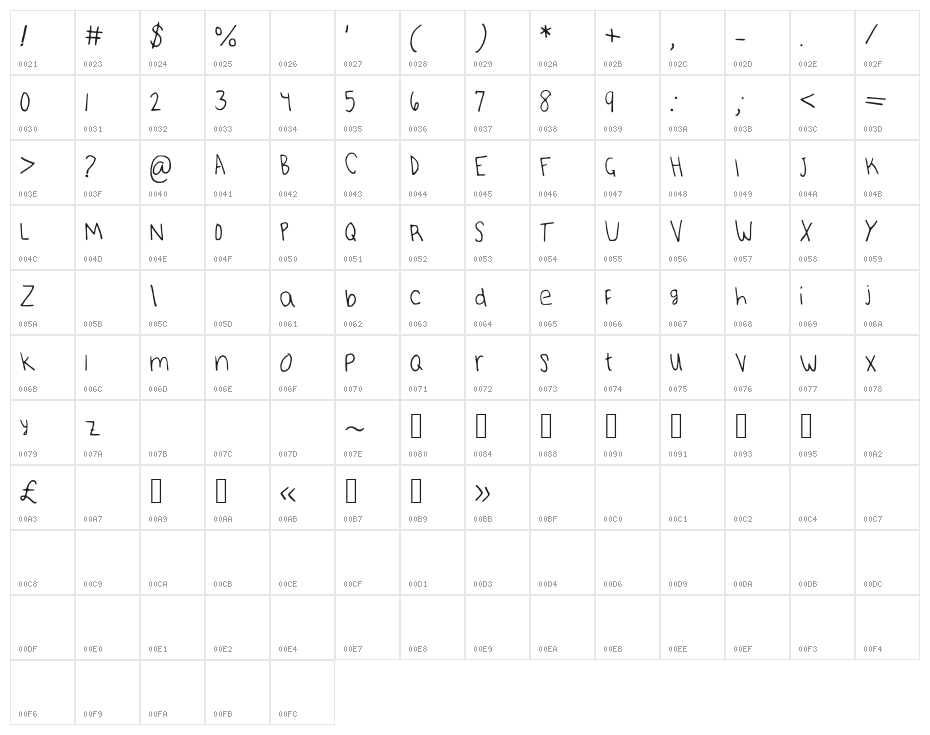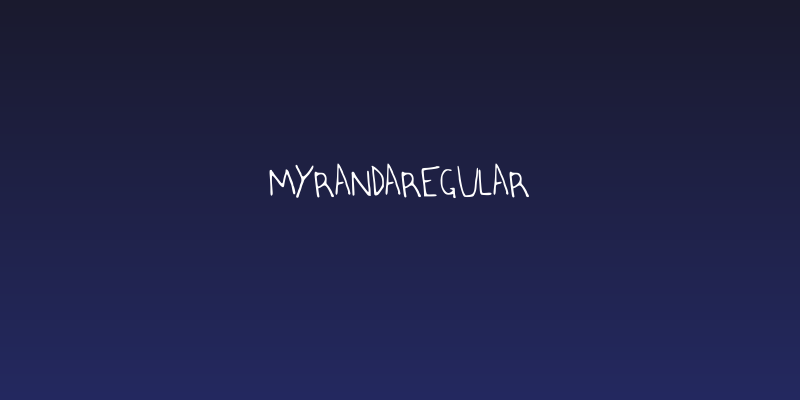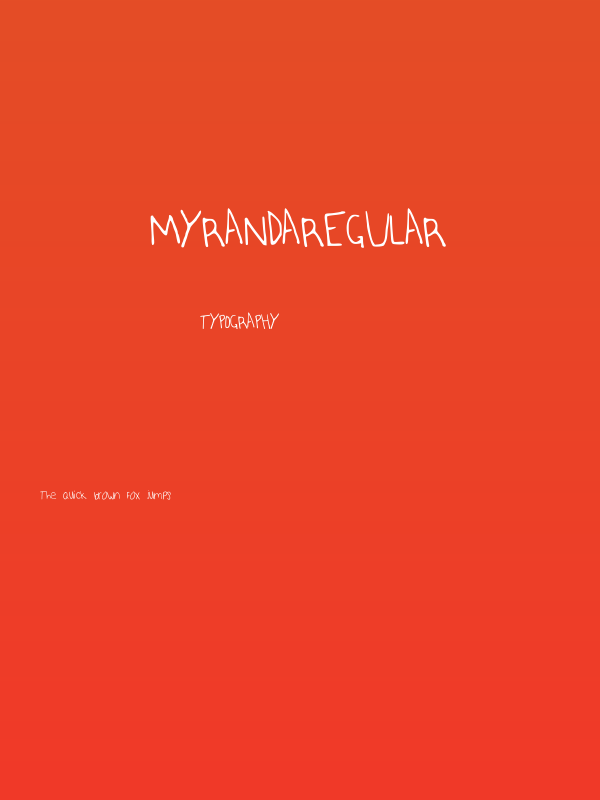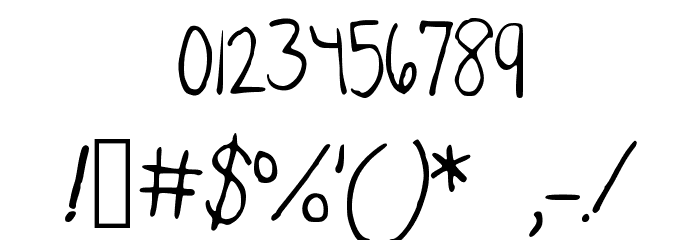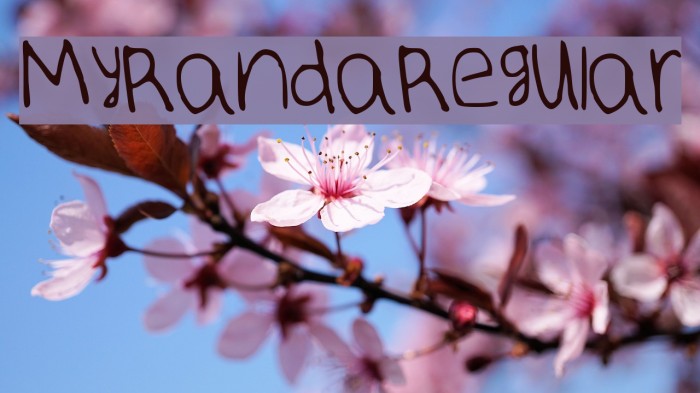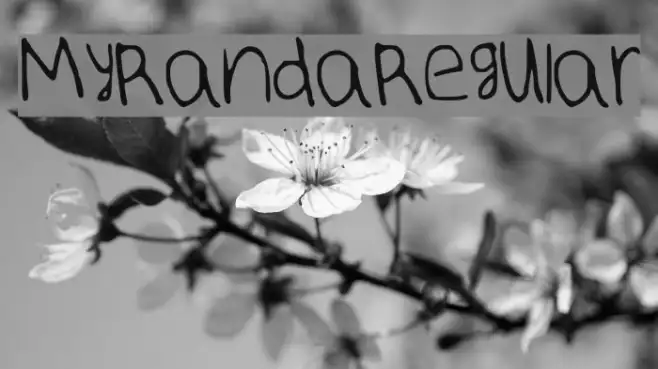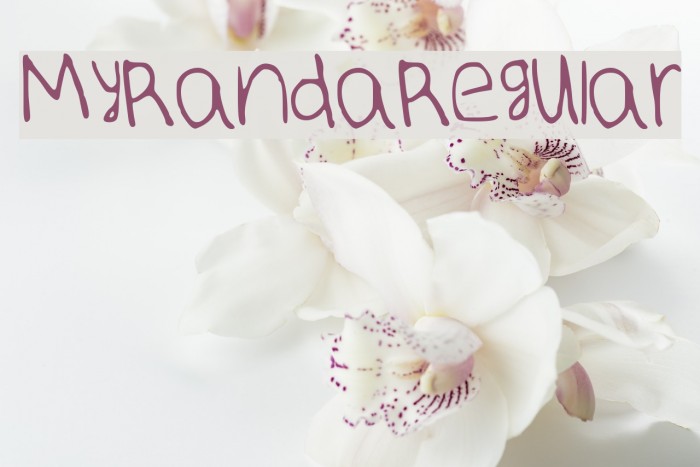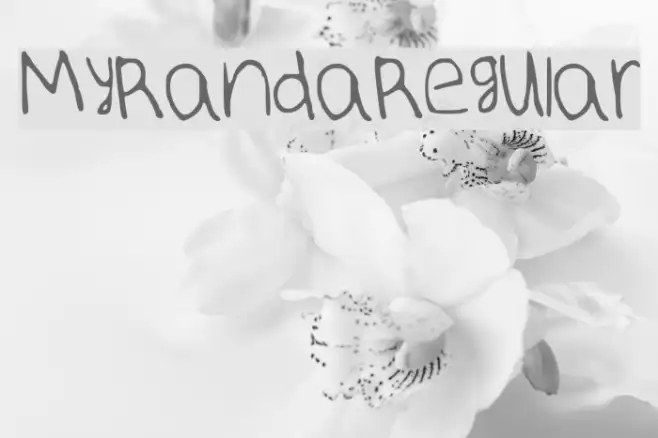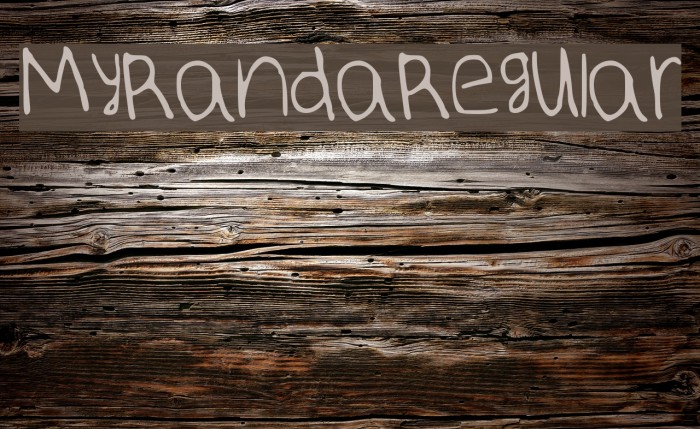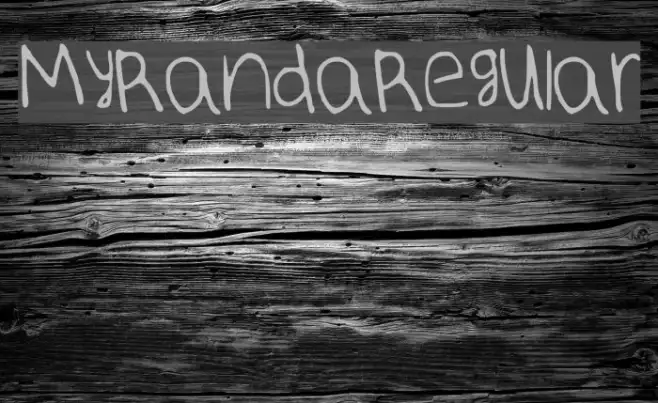
MyRandaRegular Font
MyRandaRegular Description
This font features a playful, handwritten style with a casual and informal appearance. The letters are slightly irregular, giving it a charming and personal touch. The uppercase and lowercase letters maintain a consistent flow, with rounded edges and a slight tilt, adding to its whimsical nature. The numerals and special characters follow the same playful design, making it suitable for creative projects. The overall look is approachable and friendly, ideal for conveying warmth and personality.
| Overall Style | Casual, Whimsical |
| Proposed Projects | Ideal for greeting cards, children's books, personal blogs, and creative branding projects. |